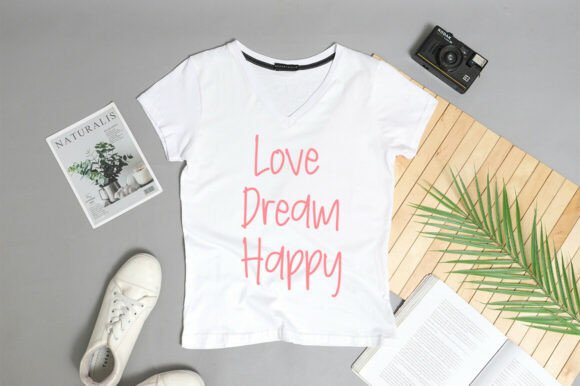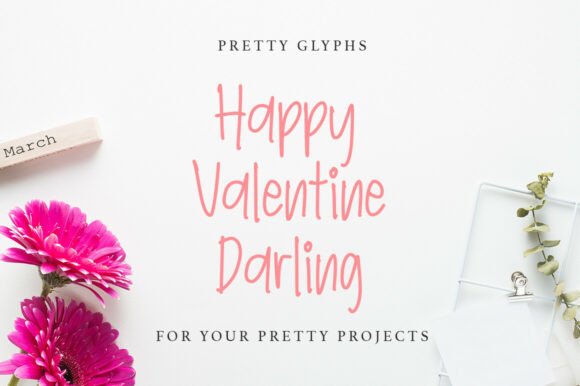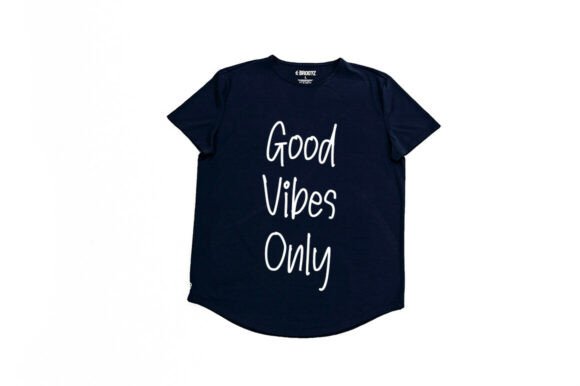
Introduction to Minimalistic Font
Have you ever been stuck on a creative project, staring at a blank page, desperate for the perfect font to bring your vision to life? For designers, finding the right typography can make all the difference between a mediocre design and a truly stunning one. And that’s where the Minimalistic Font comes in – a game-changing typeface that’s as beautiful as it is functional.
This elegant, handwritten font is more than just a pretty face; it’s a valuable design resource that can elevate your minimalist aesthetic to new heights. With its slim, airy letterforms and generous verticality, the Minimalistic Font is the perfect choice for designers looking to create a “quiet luxury” look that’s both effortless and modern.
Key Features of Minimalistic Font
- High-quality, clean design perfect for creative projects that require a subtle yet effective font.
- Features a transparent background, allowing for seamless integration into any design.
- Designed with precision and attention to detail, ensuring a professional look in any creative project.
- Perfect as a design resource for logos, typography, and other creative endeavors.
Honest Review: Minimalistic Font
I recently had the chance to work with the Minimalistic Font, and I must say it’s been a great addition to my design toolkit. As a designer, I’m always on the lookout for high-quality fonts that can elevate my creative projects.
Here are some things that work well with the Minimalistic Font: ✨ High-quality design, ✨ Clear and readable, ✨ Compatible with various design software, and ✨ Great for creating a modern and sleek look.
However, there are a few limitations to keep in mind: ⚠️ Limited character set, ⚠️ Not suitable for extended text, and ⚠️ Requires a transparent background to showcase its true potential.
Overall, I’m impressed with the Minimalistic Font. It’s a great addition to any designer’s toolkit, and its high-quality design makes it a standout choice. With a little creativity, you can use this font to create stunning designs that grab attention.
- Perfect for logos, branding, and other creative projects
- Great for digital design, including websites and social media graphics
- Works well with other minimalist design elements
Use the Minimalistic Font in conjunction with a high-quality image or graphic to create a striking visual effect. Experiment with different font sizes and styles to add depth and interest to your design.
The Minimalistic Font is ideal for use in business cards, brochures, and other marketing materials where a clean and simple design is required. It’s also a great choice for creating a logo or branding identity for a new business or product.